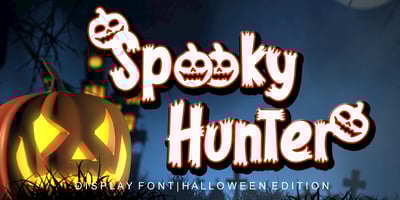
Spooky Hunter
Spooky Hunter font
Spooky Hunter Font Family was designed by Ahmad Afandi and published by Letterafandi Studio. Spooky Hunter contains 2 styles and family package options. Spooky Hunter is a thick-lettered and spooky display font. It is perfectly suitable for any Halloween-related project or crafty idea! This font is PUA encoded, which means that you can access all of the glyphs and swashes with ease!